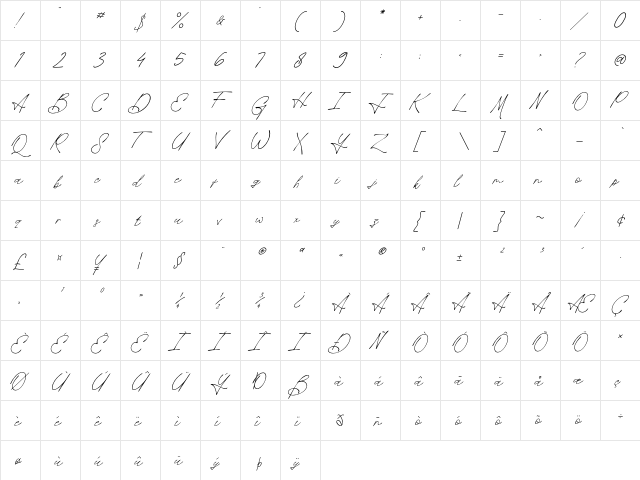
Rosanthie Regular
| Foundry | Anomali Creative |
Design Context for Rosanthie Typeface
Rosanthie takes a measured approach to typography — its balanced proportions and neutral character make it a reliable workhorse for both digital and print work.